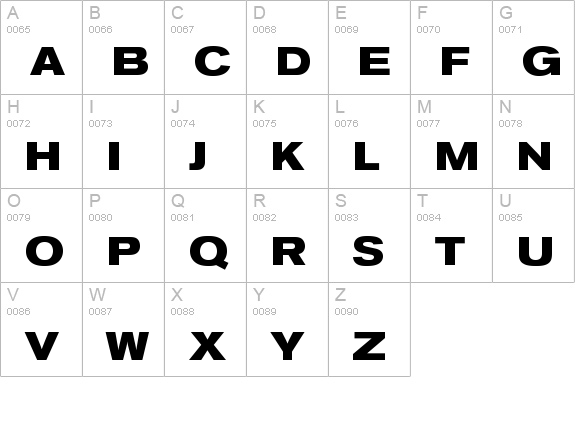
Berthold Akzidenz Grotesk BE Bold Extended is a strong, high-contrast, extended-width variant in the Berthold typeface family \xE2\x80\x94 well suited to headlines, attention-grabbing titles, and strong calls-to-action.
Berthold Akzidenz Grotesk BE Bold Extended font is a bold and striking typeface that exudes confidence and strength. Its extended letterforms give it a modern and impactful appearance, making it perfect for headlines, posters, and other display purposes. The clean lines and geometric shapes of this font make it highly versatile and easy to read, while still commanding attention. What's even better is that Berthold Akzidenz Grotesk BE Bold Extended font is available for free download at FontsMarket.com. This means you can easily access this powerful and eye-catching font for your design projects without any cost. Don't miss out on the opportunity to add this impressive typeface to your collection and enhance your designs with its bold and commanding presence.